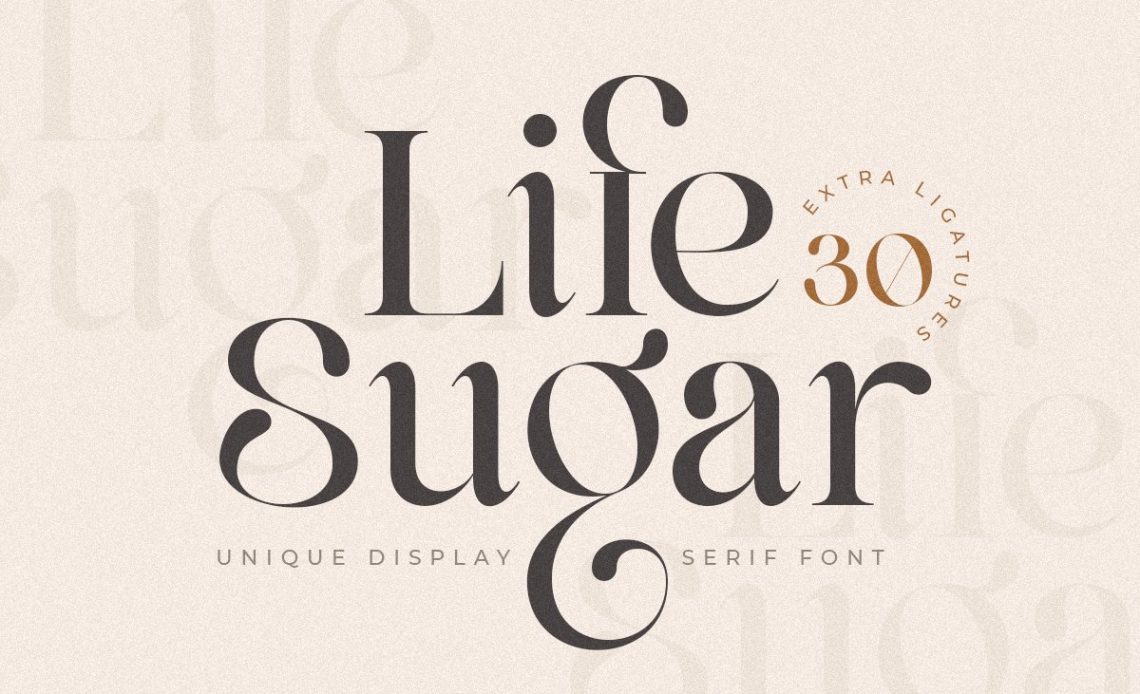
Introducing Life Sugar - the Best Font for Boat Lettering. This unique serif font is the perfect choice for anyone looking to elevate their design projects. Created by the talented Muhammad Zamroni Hamzah, Life Sugar is a true gem in the world of typography.
With its luxury, elegant, modern, and classy-look, Life Sugar brings a touch of sophistication to any creative endeavor. Whether you're working on a magazine layout, social media graphics, branding materials, or even a stunning logo, this font is guaranteed to make your designs stand out from the crowd.
Life Sugar is carefully crafted with beauty-themed projects in mind. Its unique display serif style adds a sense of charm and allure to your work, making it irresistible to the eyes. Captivate your audience with a font that exudes professionalism and creativity.
What sets Life Sugar apart from other fonts is its extensive character set. The font includes both uppercase and lowercase letters, ensuring flexibility and variety in your designs. Additionally, it features multilingual characters, numerals, and punctuation, making it suitable for international projects.
But Life Sugar is more than just a font - it's a gateway to a world of endless possibilities. Let your imagination run wild as you explore the endless design opportunities this font offers. From elegant wedding invitations to stunning posters, Life Sugar will transform your ideas into masterpieces.